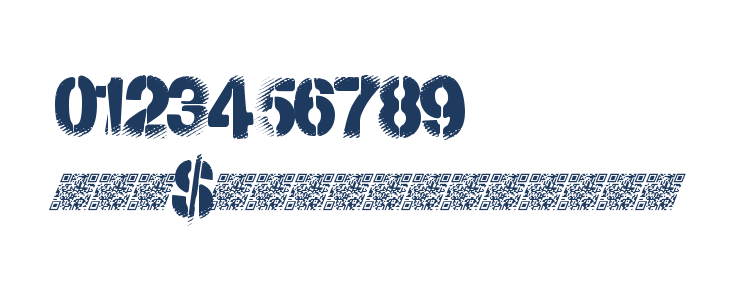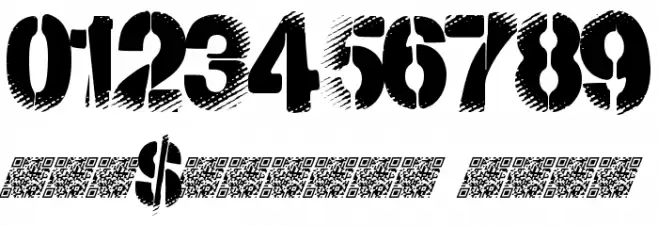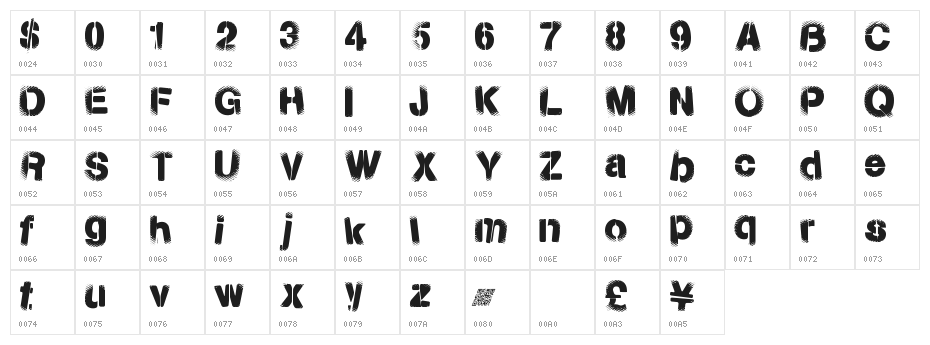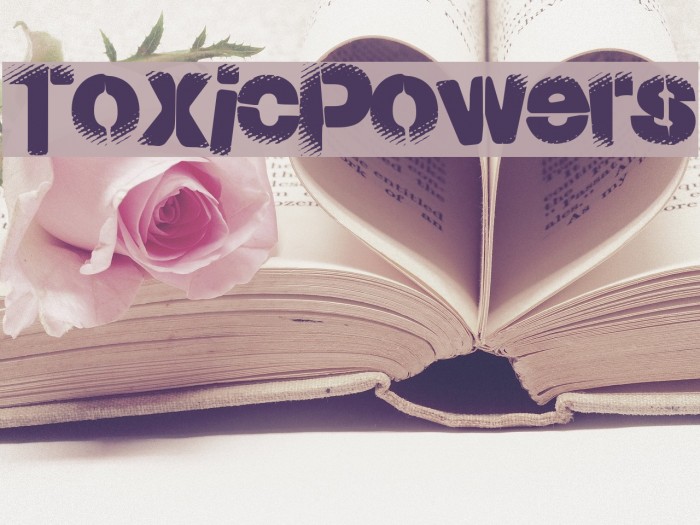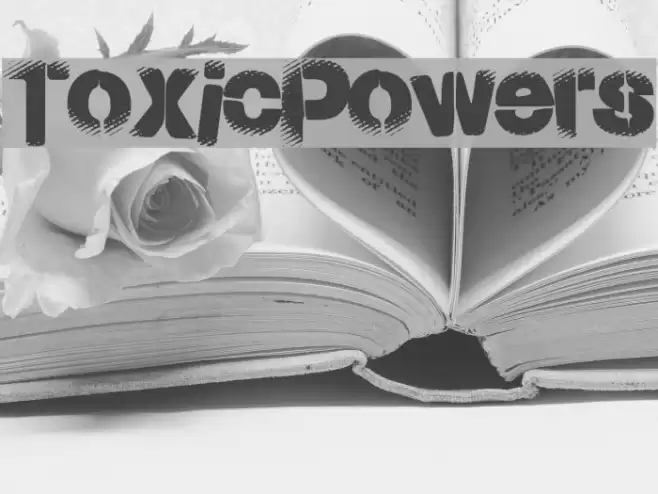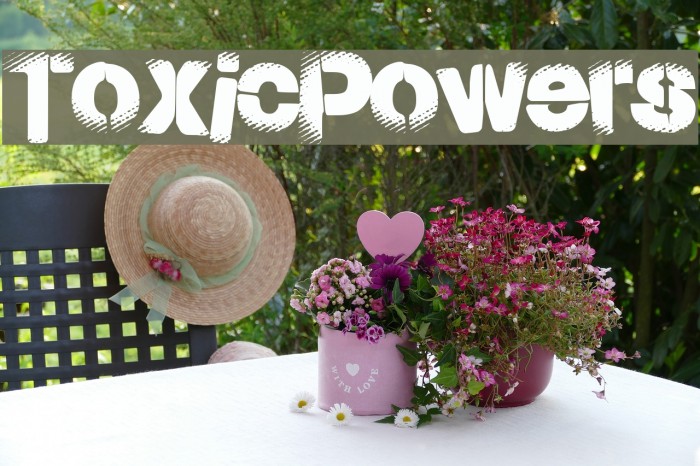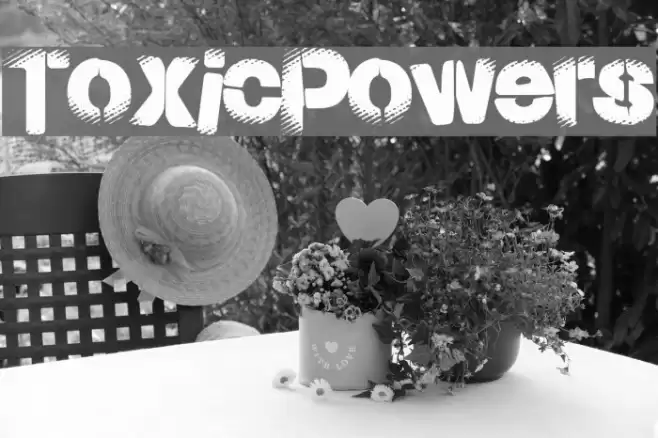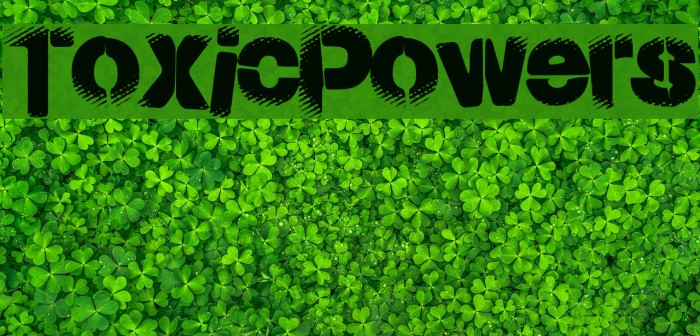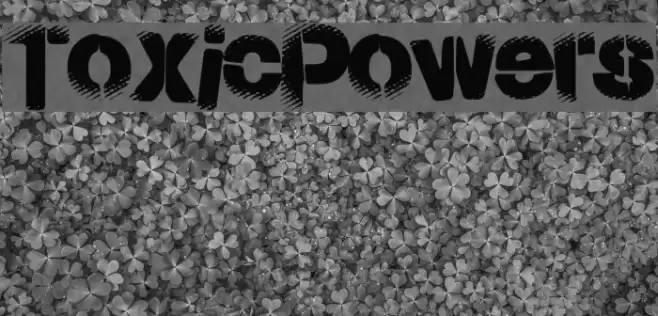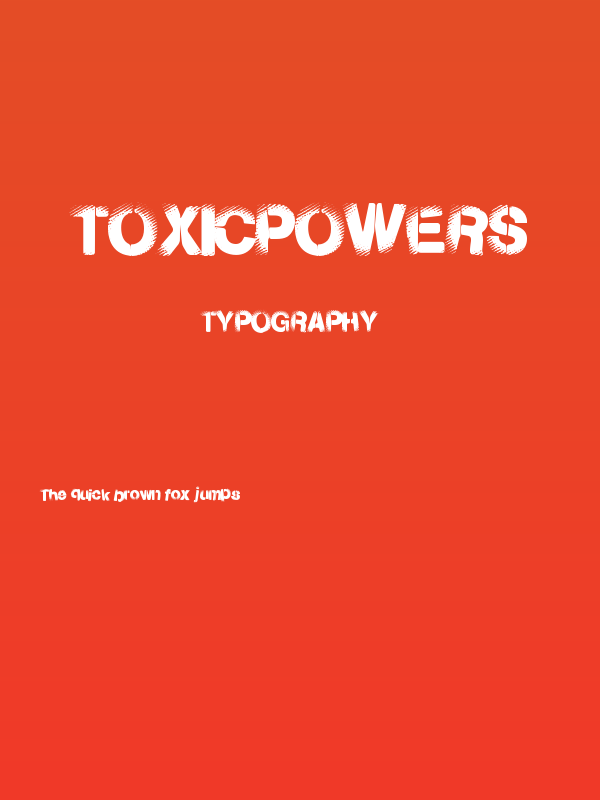
ToxicPowers Font
ToxicPowers Description
This font features a bold and dynamic style with a distressed, textured appearance. The letters are heavily stylized with a unique pattern that gives them a sense of movement and energy. The uppercase and lowercase letters maintain a consistent design, with rounded edges and a playful, almost graffiti-like aesthetic. The numbers and special characters follow the same design principles, ensuring a cohesive look across all characters. This font is perfect for projects that require a bold statement or a creative, edgy vibe.
| Proposed Projects | Ideal for posters, album covers, street art designs, and branding that requires a bold, creative touch. |